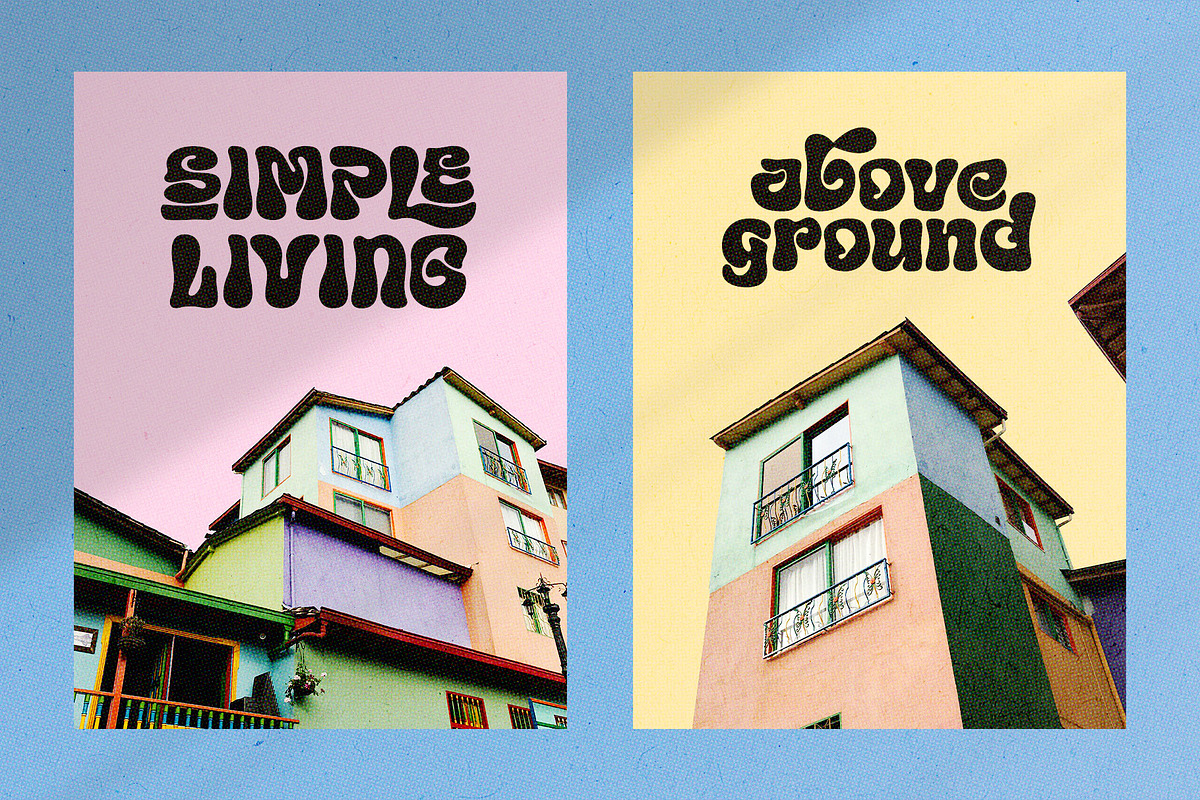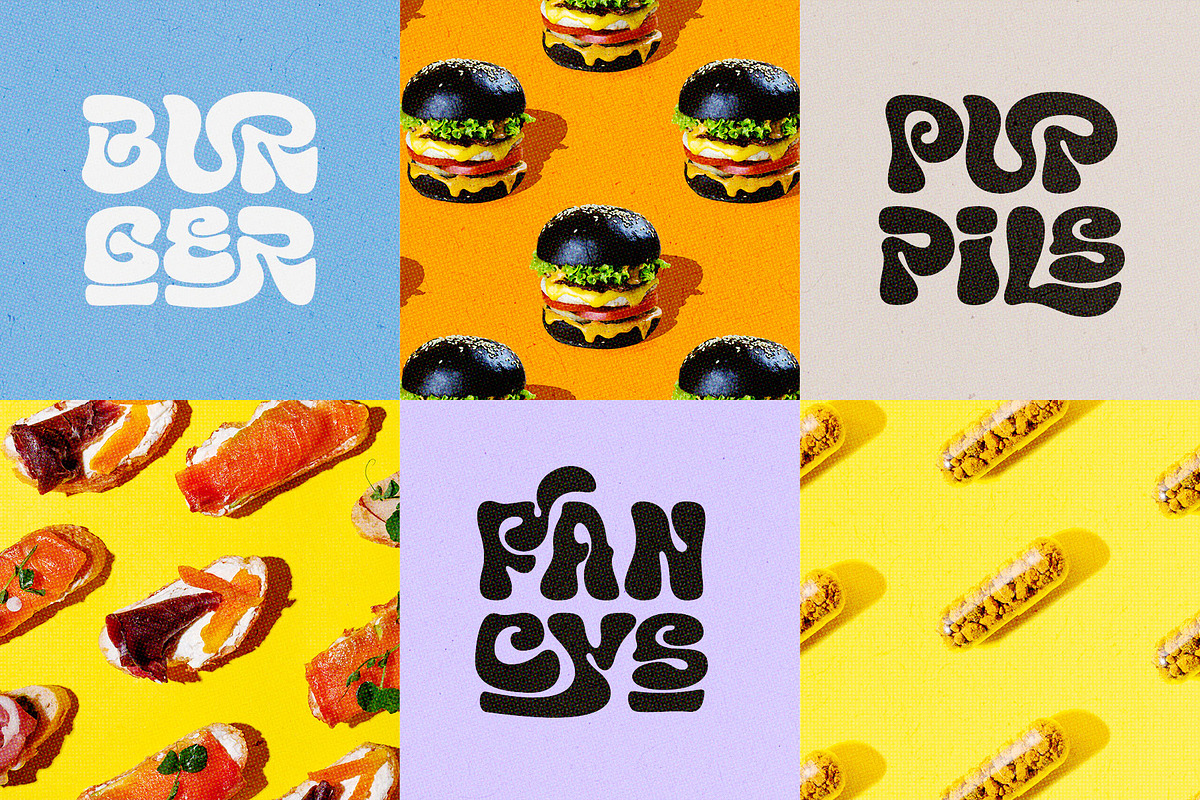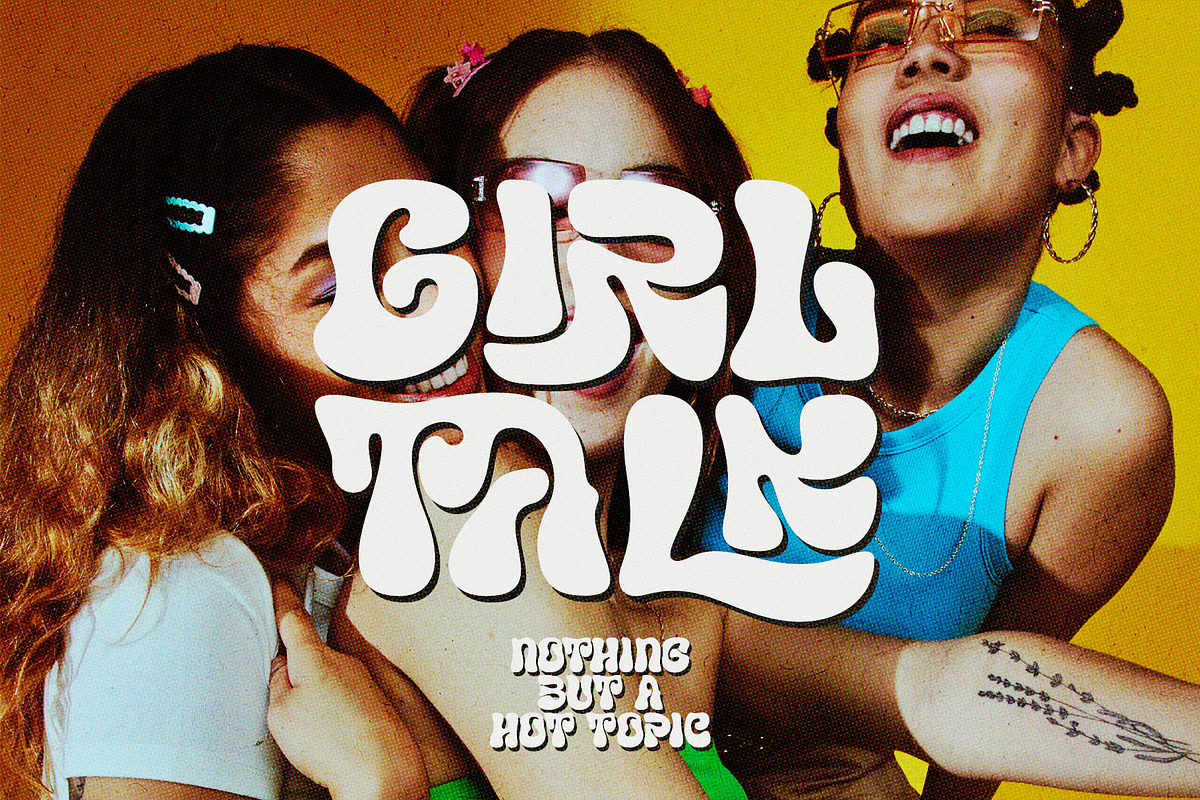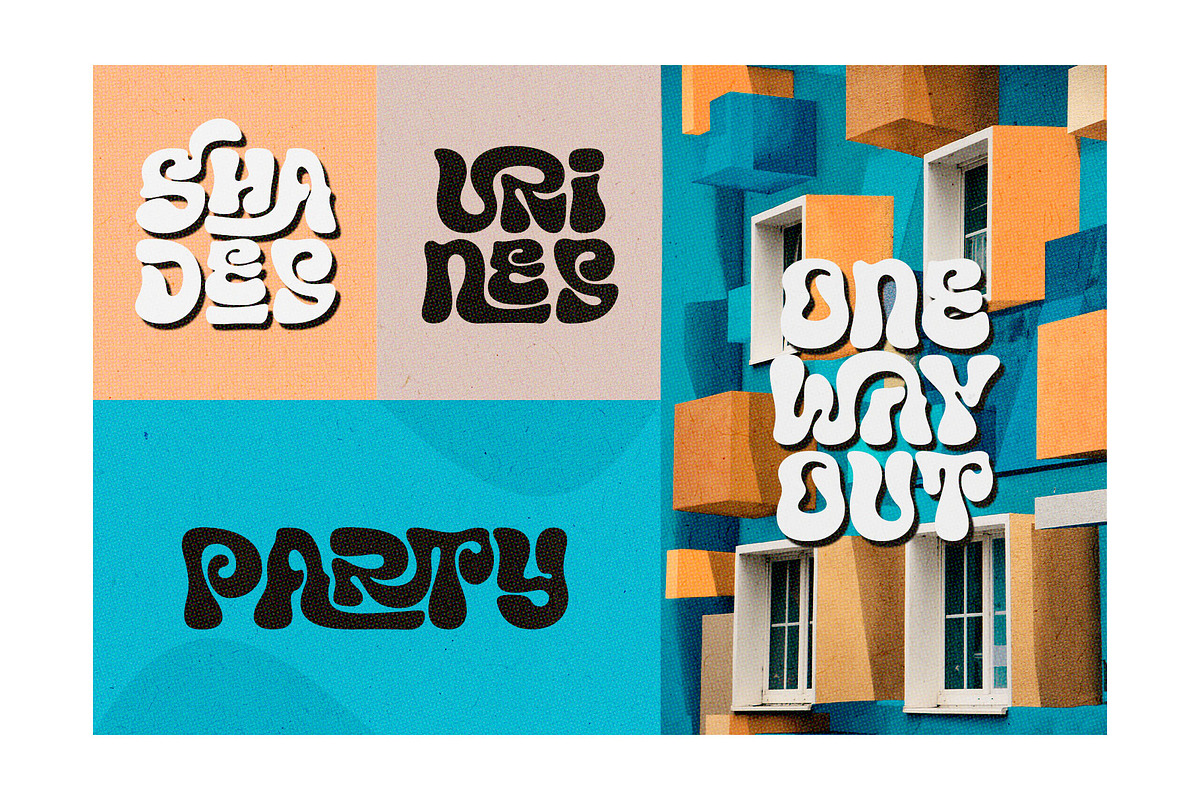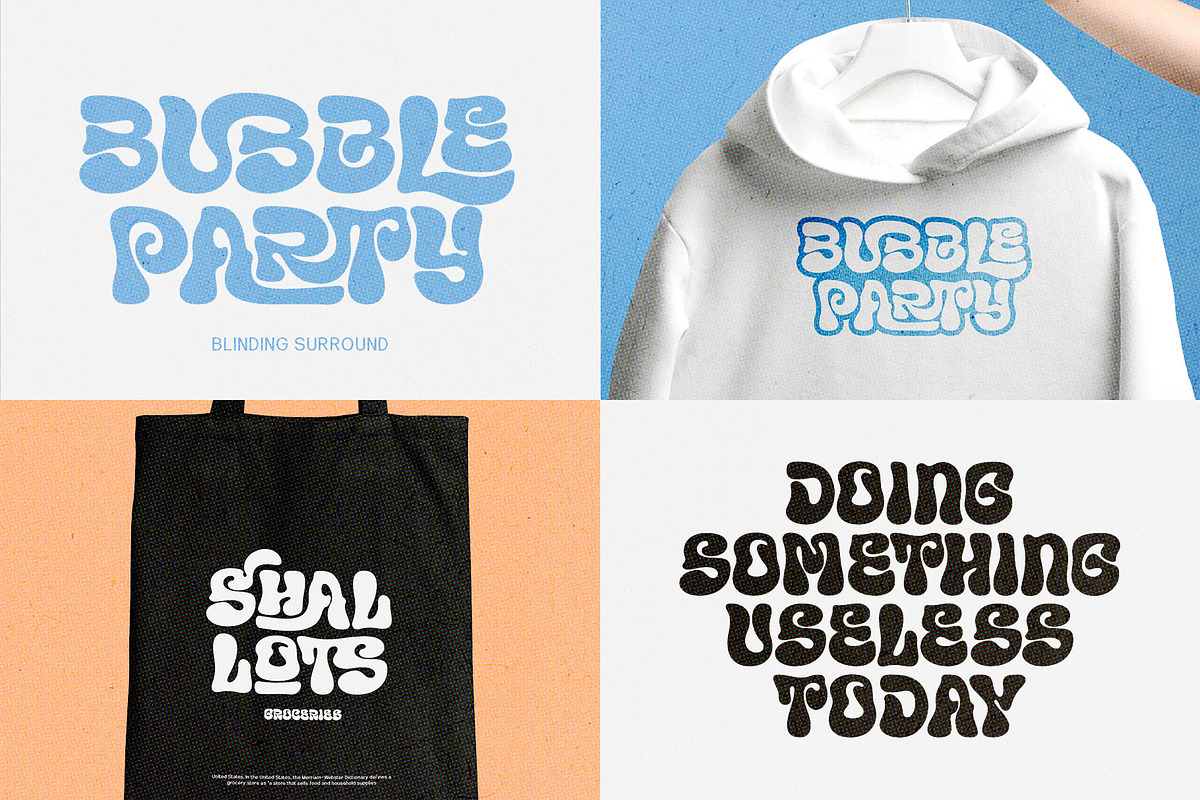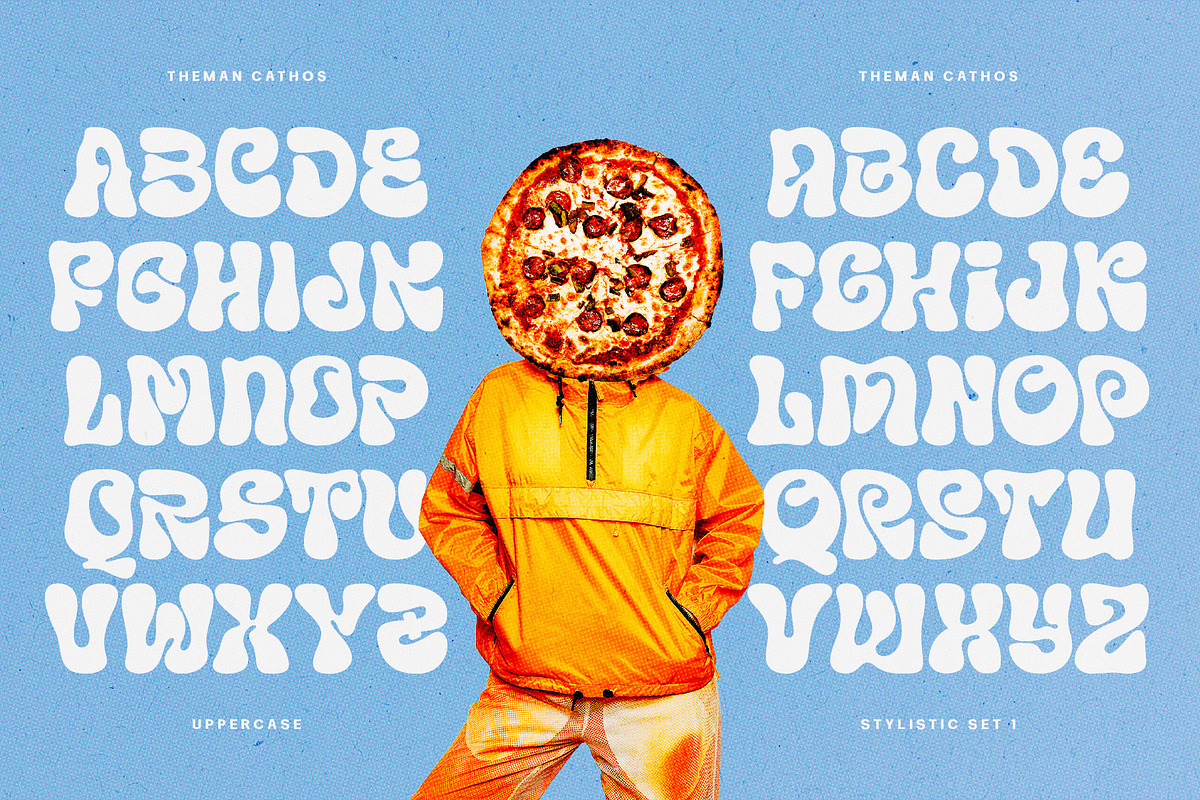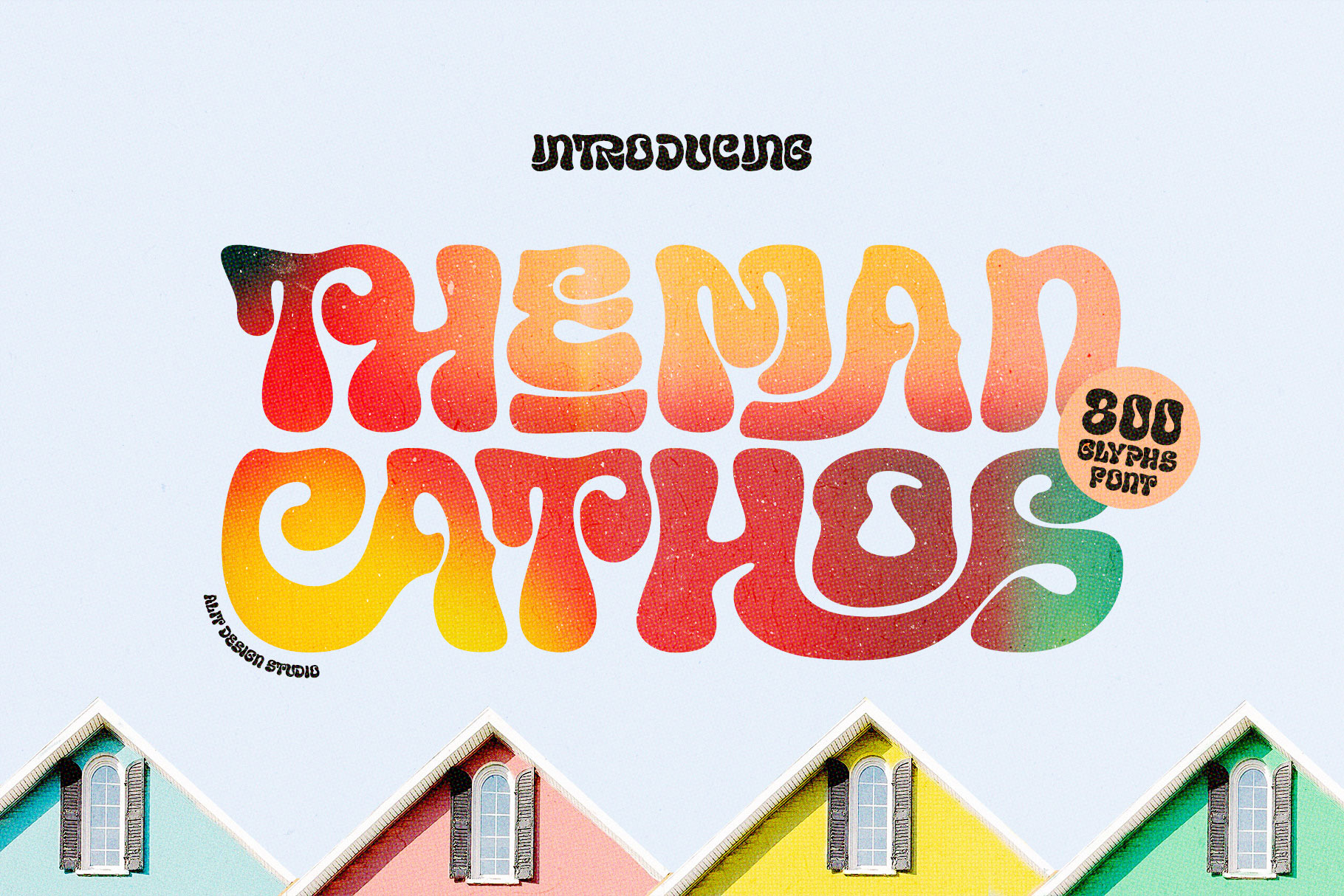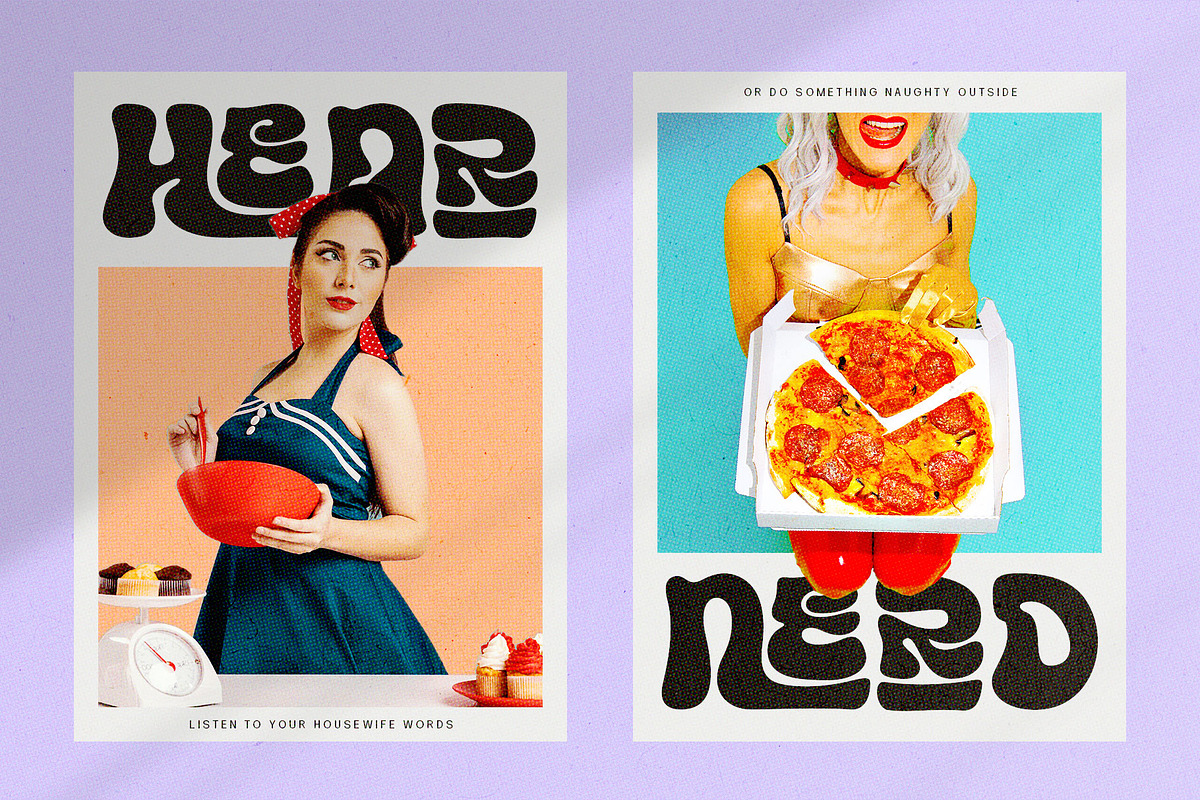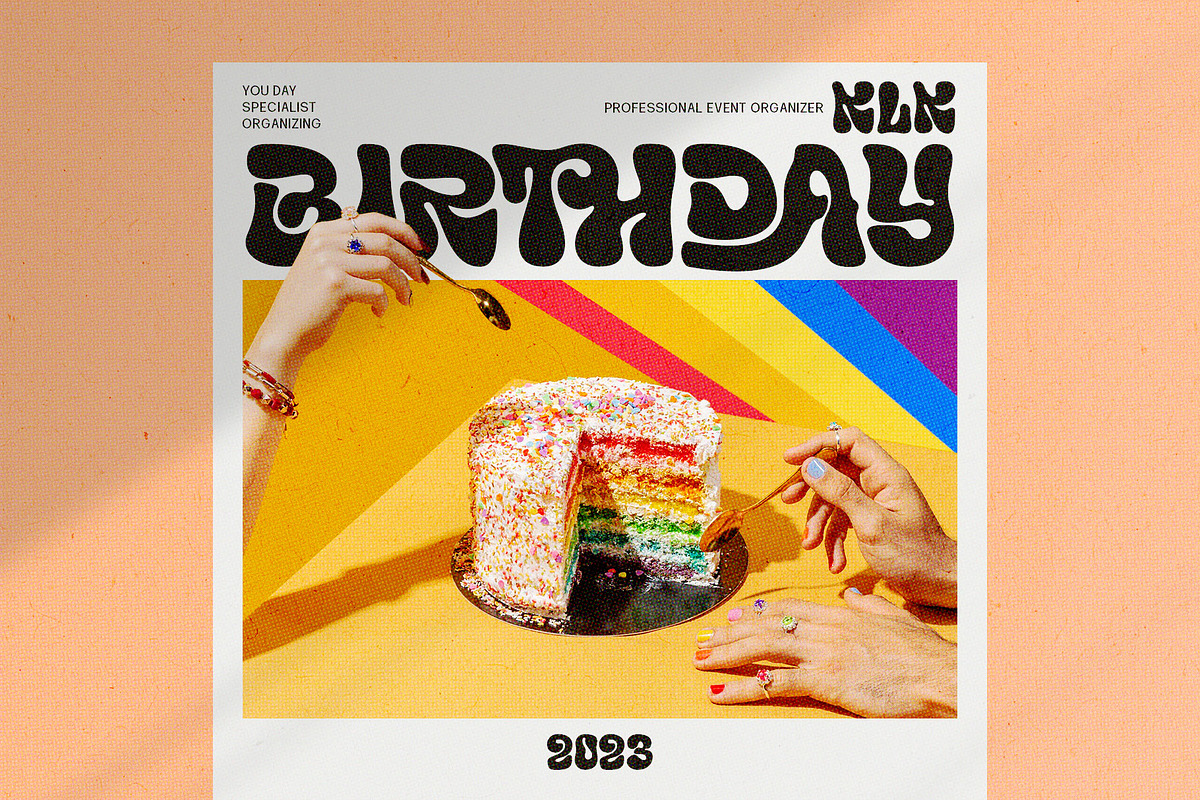
Theman Cathos Bubble Font
Introducing "Theman Cathos" Font: A Bubble Dynamic, Modern, and Funky Typeface
Theman Cathos is a captivating font that combines the essence of bubble dynamics with a modern and funky style. Its unique design exudes energy and playfulness, making it perfect for projects that require a fresh and vibrant look.
This typeface features rounded letterforms with soft edges, giving it a friendly and approachable feel. The bubbly contours of each character create a sense of movement and liveliness, capturing attention and adding a touch of whimsy to any design.
With its modern twist, Theman Cathos brings a contemporary edge to traditional bubble fonts. It embraces clean lines, sleek curves, and a balanced composition, making it versatile for a wide range of applications. Whether you're designing a logo, branding materials, advertising campaigns, or social media graphics, this font will add a dynamic and eye-catching element to your project.
Theman Cathos also offers a wide range of glyph variations, including ligatures, alternates, and stylistic sets, allowing you to customize and experiment with different letter combinations. This versatility empowers you to create unique typographic compositions that truly reflect your creative vision.
Embrace the spirit of modernity and funk with Theman Cathos font. Elevate your designs, stand out from the crowd, and infuse them with a sense of joy and energy. Let this captivating typeface be the perfect tool to express your creativity and make a memorable impact.